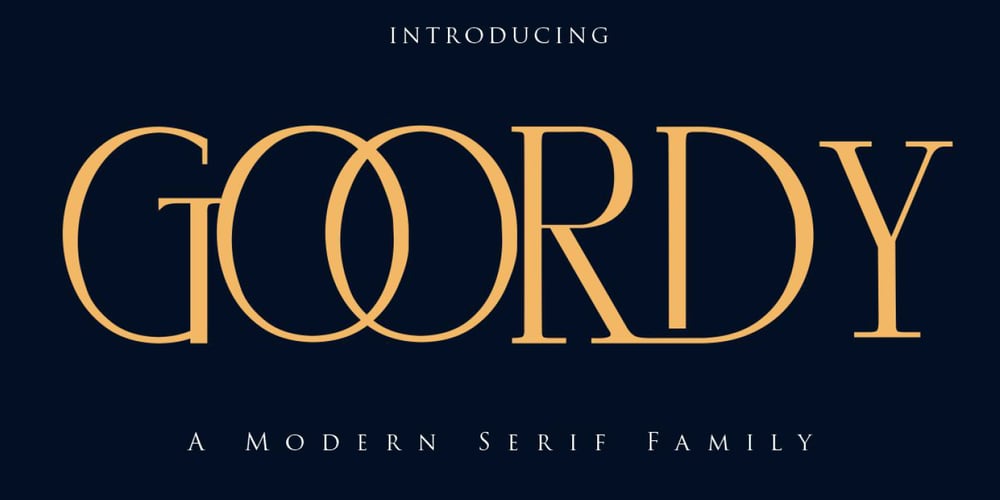
Goordy Font Family was designed by Gumilar Pratama Adiatna and published by Gilar Studio. Goordy contains 4 styles and family package options. Goordy – Modern Serif FamilyGoordy is a classic style serif typeface that has been modernised with its unique curves and cut-ins making it one of the most memorable caps fonts on the market. Already matched up and ready to be used together for your next design! For those of you who are needing a touch of elegant, stylish, classy, chic and modernity for your designs, this font was created for you!Goordy is perfect also Suitable for Logo, greeting cards, quotes, posters, branding, name card, stationary, design title, blog header, art quote, typography, art, modern envelope lettering or book design,craft design, any DIY project, book title, or any purpose to make your art/design project look pretty and trendy.The OpenType features can be very easily accessed by using OpenType-savvy programs such as Adobe Indesign, Adobe Illustrator CS, Adobe Photoshop CC, and Corel Draw (You can also access most most of these features in Microsoft Word and other similar programs, but you’ll need to get comfortable with the advanced tab of Word’s font menu. If you need help with this, ask me!) If you need to access all glyphs with a character map, you will need to contact me after purchase for a special file.Features: 4 Style Font Family All caps Stylistic Alternates & Ligatures Numerals & Punctuation Format File: OTF Accents/Multilingual characters (AÀÁÂÃÄÅCÇDÐEÈÉÊËIÌÍÎÏNÑOØÒÓÔÕÖUÙÜÚÛWYÝŸỲŸÆŒßÞ) Check my other Font here : https://gilarstudio.com/